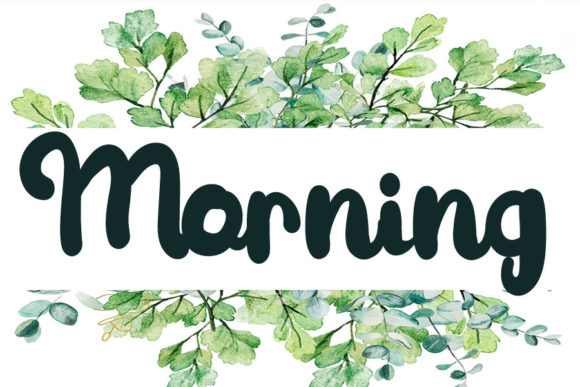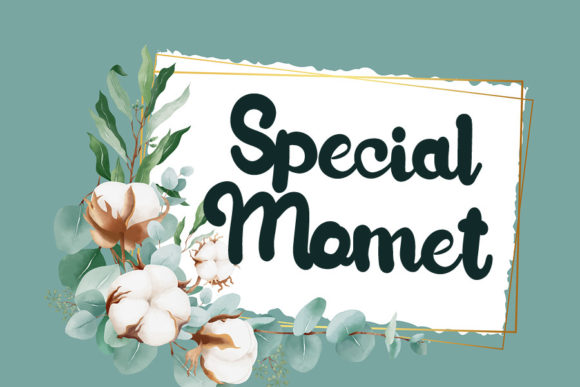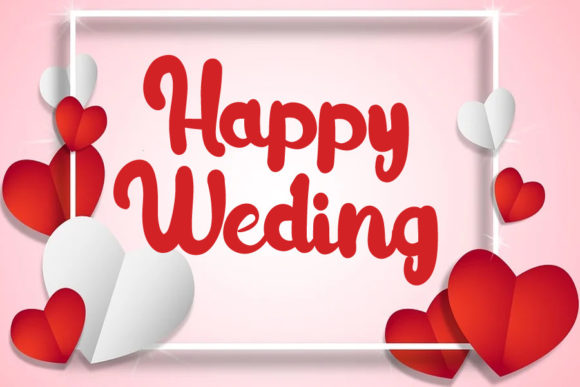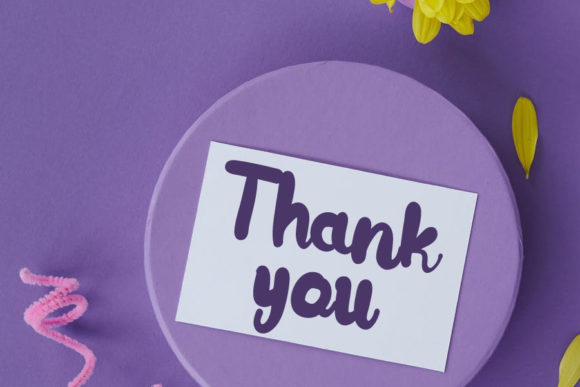
Introduction to Aunty Rich Font
Have you ever stumbled upon a design project and felt like something is missing, but you can’t quite put your finger on what it is? Maybe it’s the subtle nuance of a handwritten touch, or the warmth of a well-balanced character set. Whatever it is, we’re here to introduce you to a game-changing design resource that’s sure to elevate your creative projects: the Aunty Rich Font.
This sweet, paint-brushed handwritten font is a treasure trove of creative possibilities. With its beautiful and well-balanced characters, Aunty Rich Font is the perfect addition to any design project, whether you’re working on a free download or a high-quality print campaign. Its versatility and charm make it a valuable asset for designers looking to add a personal touch to their work.
Key Features of Aunty Rich Font
- High-Quality Design Resource: Aunty Rich Font is a premium font designed for creative projects, offering a unique and elegant look.
- Unique Characteristics: This font features a unique blend of modern and vintage elements, making it an excellent choice for creative projects that require a touch of elegance and sophistication.
Honest Review: Aunty Rich Font
I recently came across the Aunty Rich Font, and I must say, it’s a delightful addition to any design resource collection. As a designer, I’m always on the lookout for unique and high-quality fonts that can elevate my creative projects.
Here are some things that work well with the Aunty Rich Font: ✨
- High-quality design: The font is crisp and well-rendered, making it perfect for digital use.
- Unique style: The Aunty Rich Font has a distinctive, elegant feel that sets it apart from more generic fonts.
- Not suitable for small text: The font may not be the best choice for small text, as it can become difficult to read.
Overall, I’m impressed with the Aunty Rich Font and would definitely recommend it to designers working on creative projects that require a high-quality, unique font.
Aunty Rich Font is ideal for designing invitations, posters, and social media graphics. You can also use it for creating titles, headings, and body text in your designs.